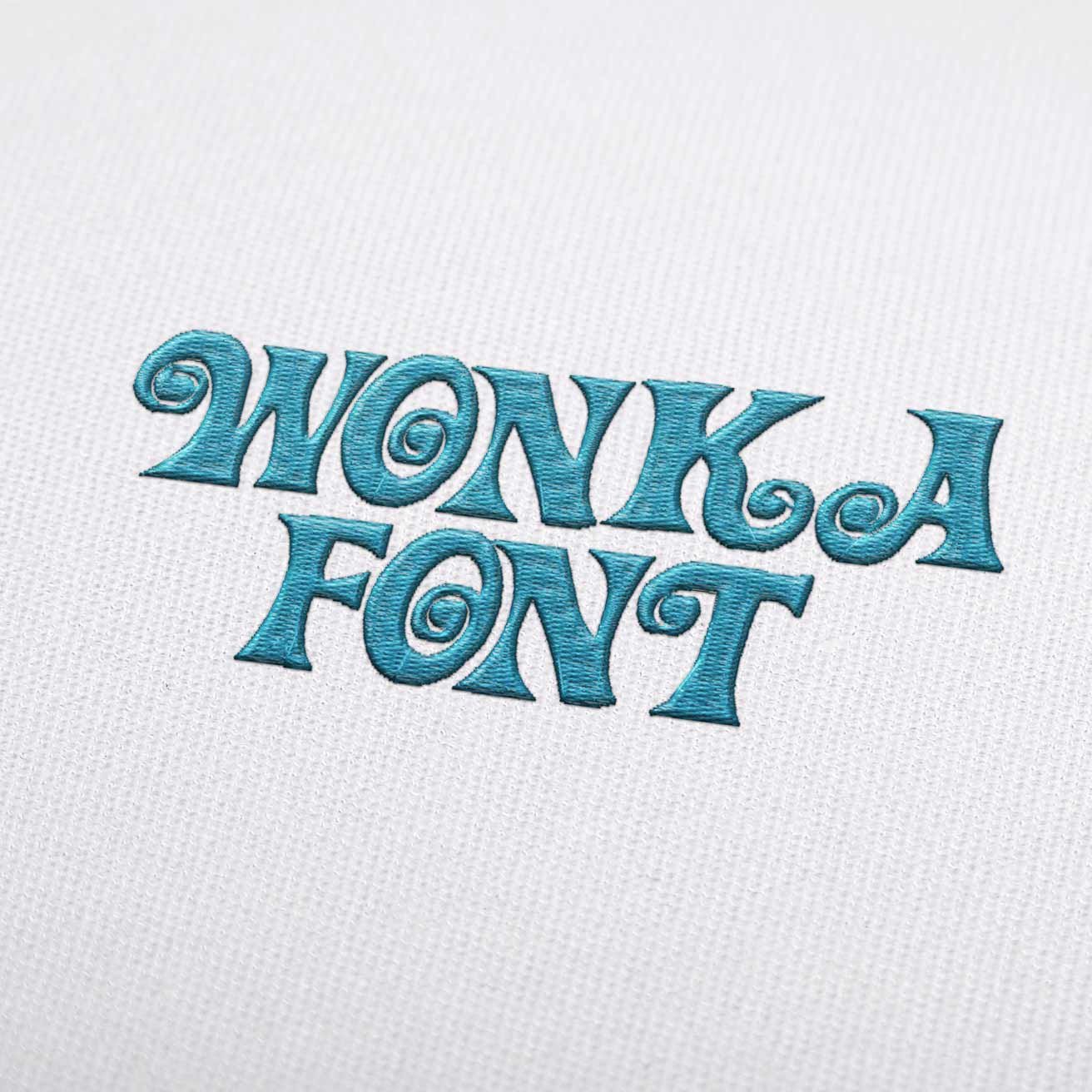
Wonka Font Embroidery Design
Letters (single case)
Wonka Font Embroidery Design, a botanical motif that looks its best on linen, cotton and light fabrics.